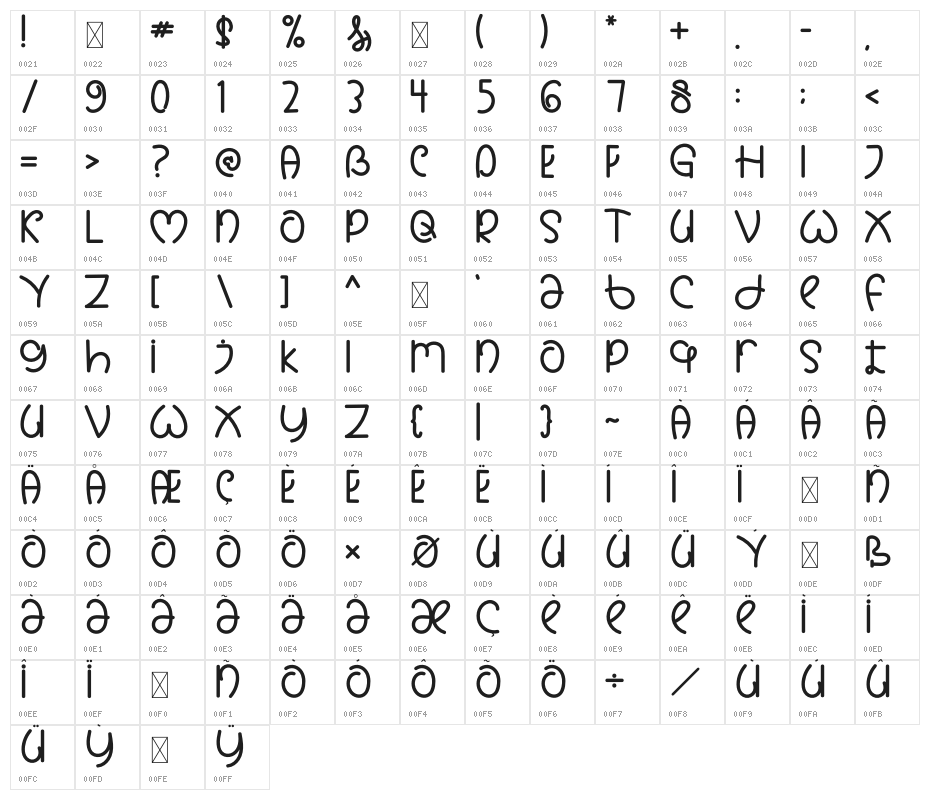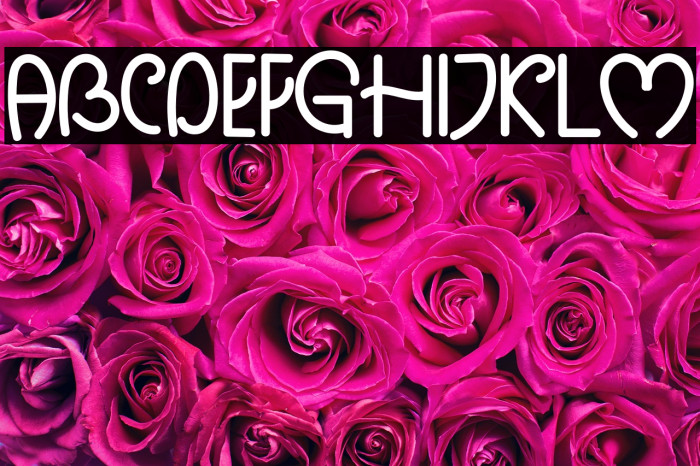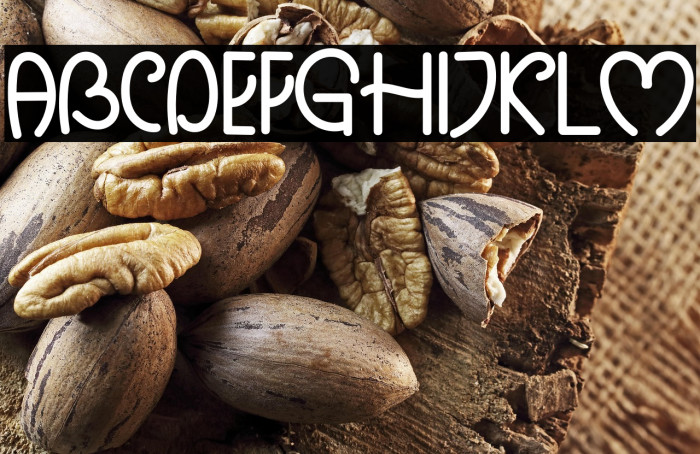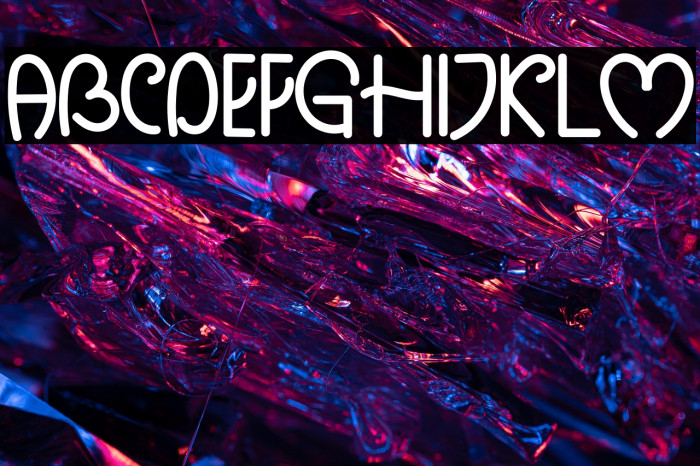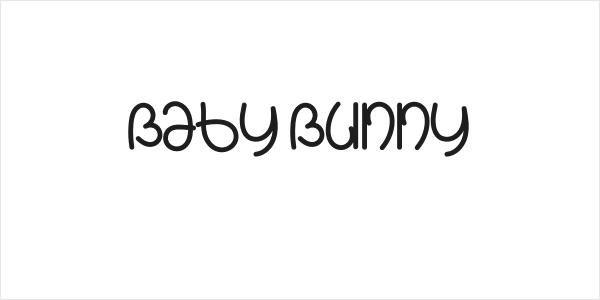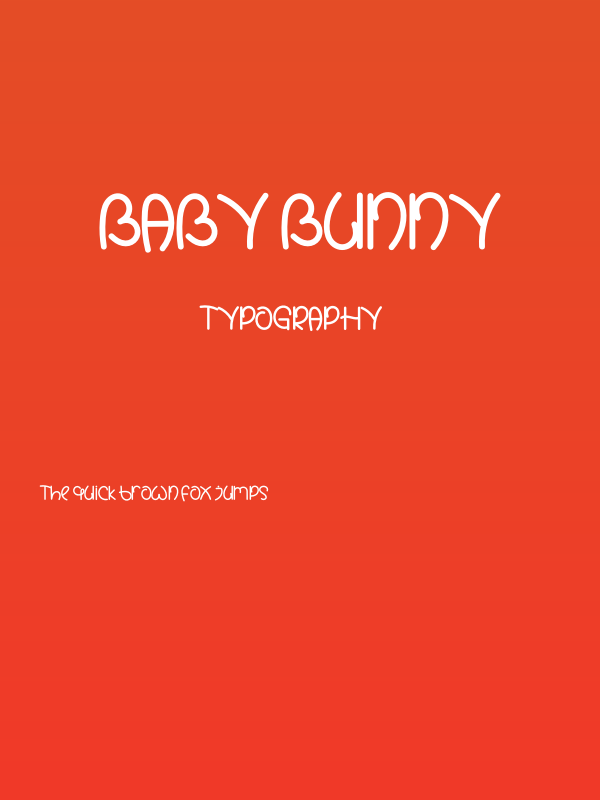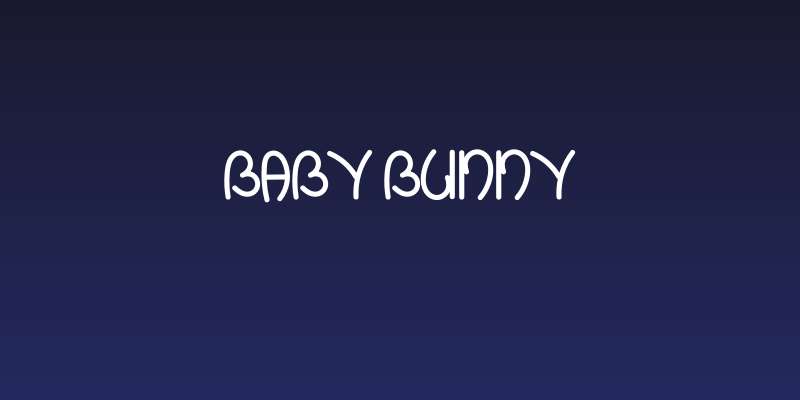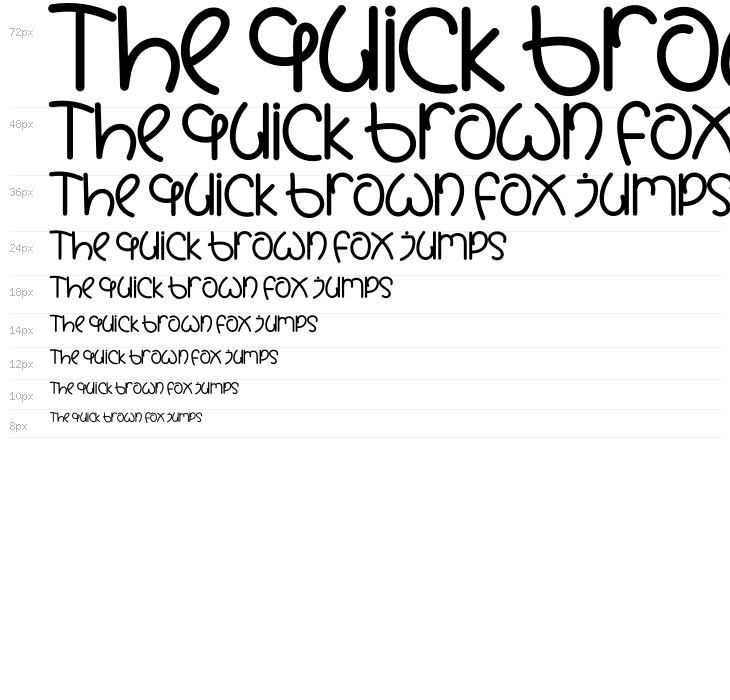
Baby Bunny Font
Baby Bunny Description
This playful and whimsical font features rounded, smooth curves and a friendly appearance. The characters are evenly spaced, with a consistent stroke width that gives it a clean and approachable look. The uppercase and lowercase letters maintain a uniform style, with slightly exaggerated curves that add a touch of fun. Numbers and special characters are designed to match the overall aesthetic, making it versatile for various uses. The font's style is reminiscent of handwriting, yet it maintains a structured form that ensures readability.
| Use Case | Headlines, Logos, Children's materials |
| Proposed Projects | Ideal for children's books, playful branding, greeting cards, and educational materials. |